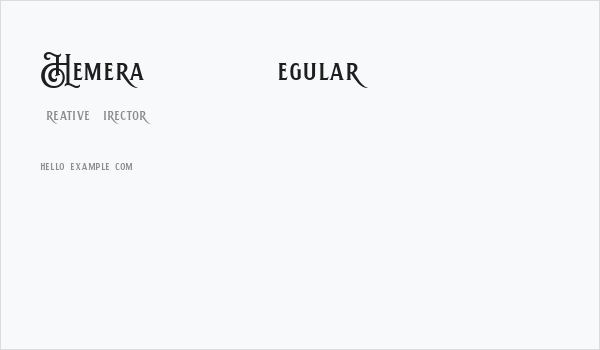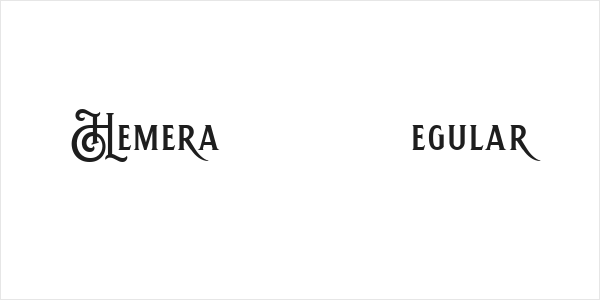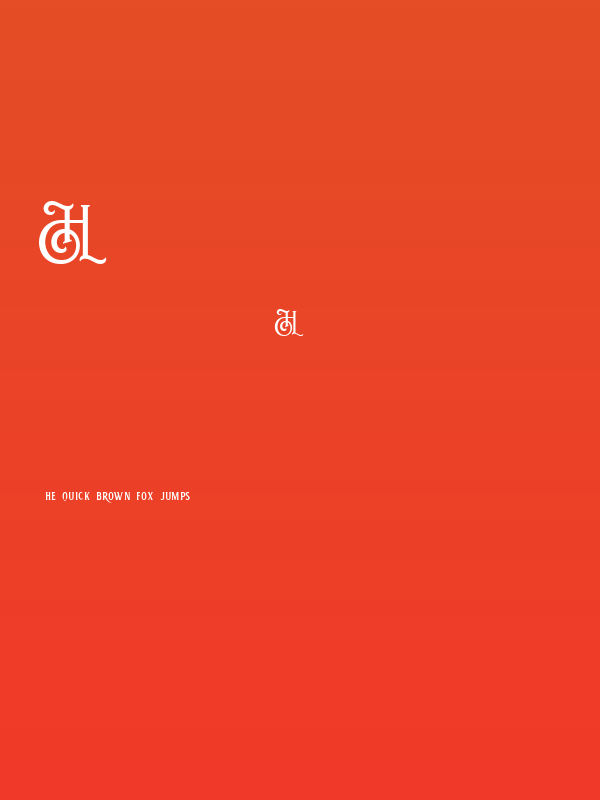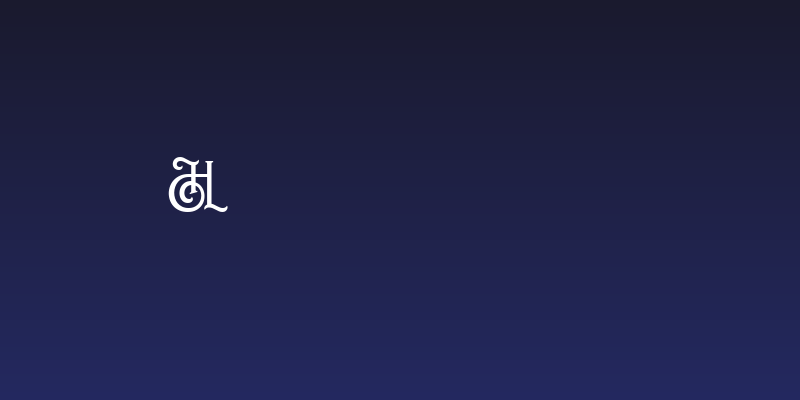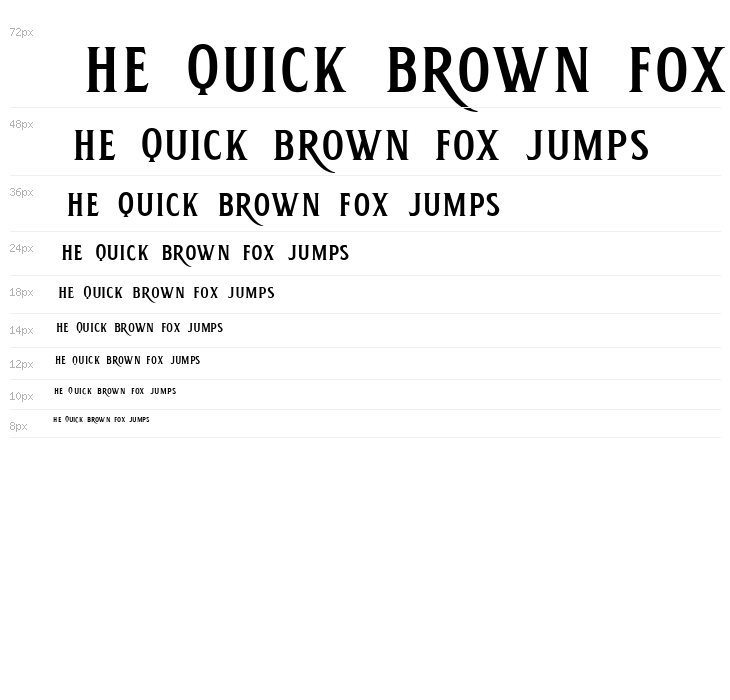
Hemera II DEMO Regular Font
Hemera II DEMO Regular Description
This font features a unique blend of classic and modern elements, characterized by its elegant and slightly ornate design. The uppercase letters are bold and commanding, with distinctive serifs that add a touch of sophistication. The lowercase letters maintain a consistent style, offering a harmonious balance between readability and aesthetic appeal. The numerals are clear and well-defined, complementing the overall design. Special characters are thoughtfully crafted, enhancing the font's versatility. This font is ideal for projects that require a touch of elegance and tradition, while still maintaining a modern edge.